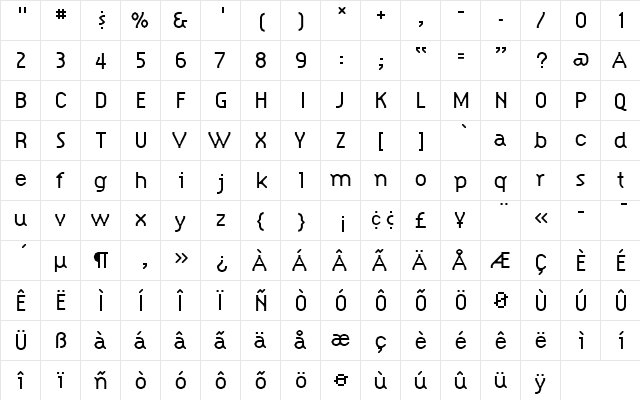
SimplexLight Medium Font Preview
SimplexLight Medium
Design Context for SimplexLight Typeface
SimplexLight takes a measured approach to typography — its balanced proportions and neutral character make it a reliable workhorse for both digital and print work. Its slender proportions lend an understated elegance to any composition.